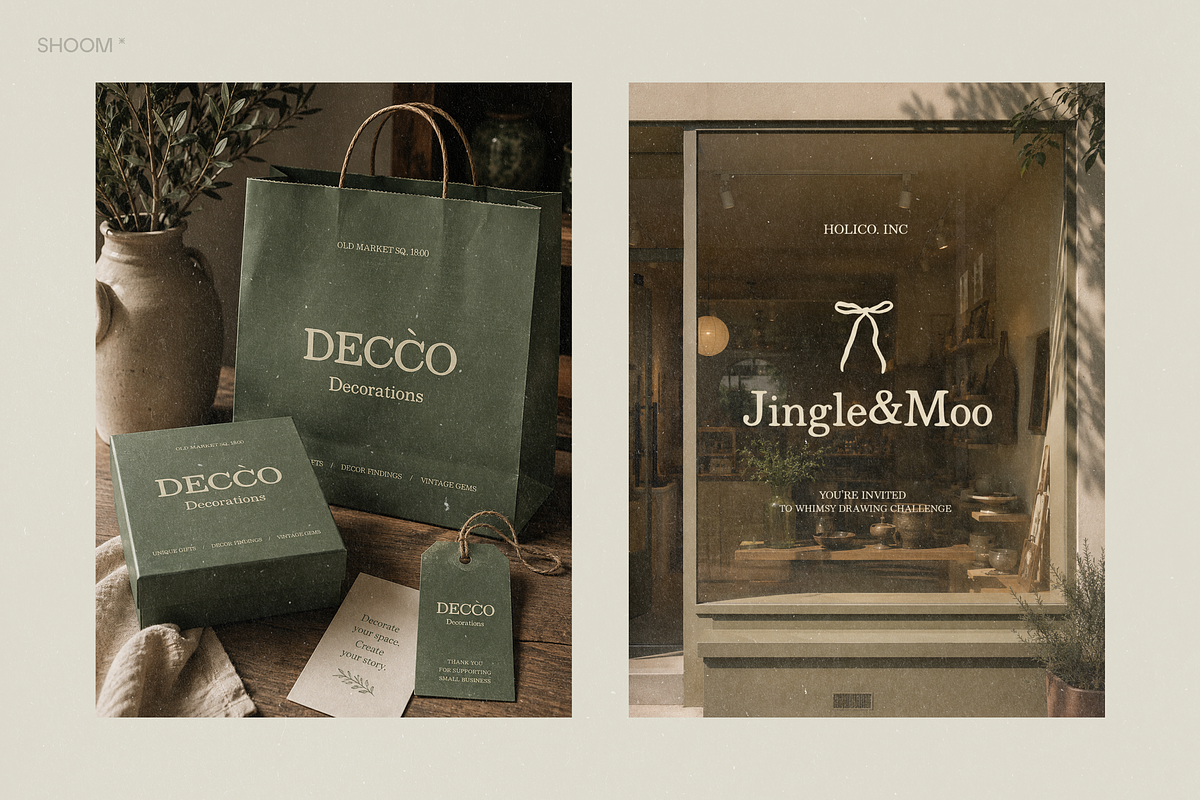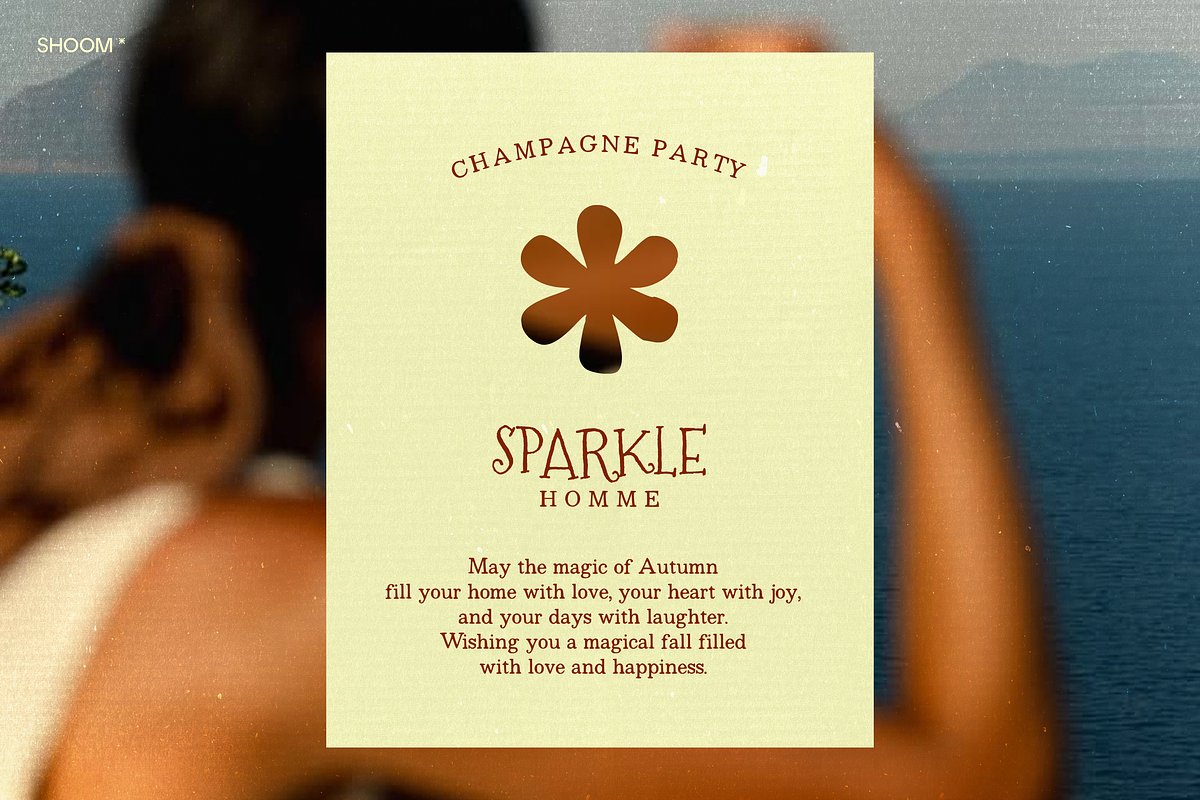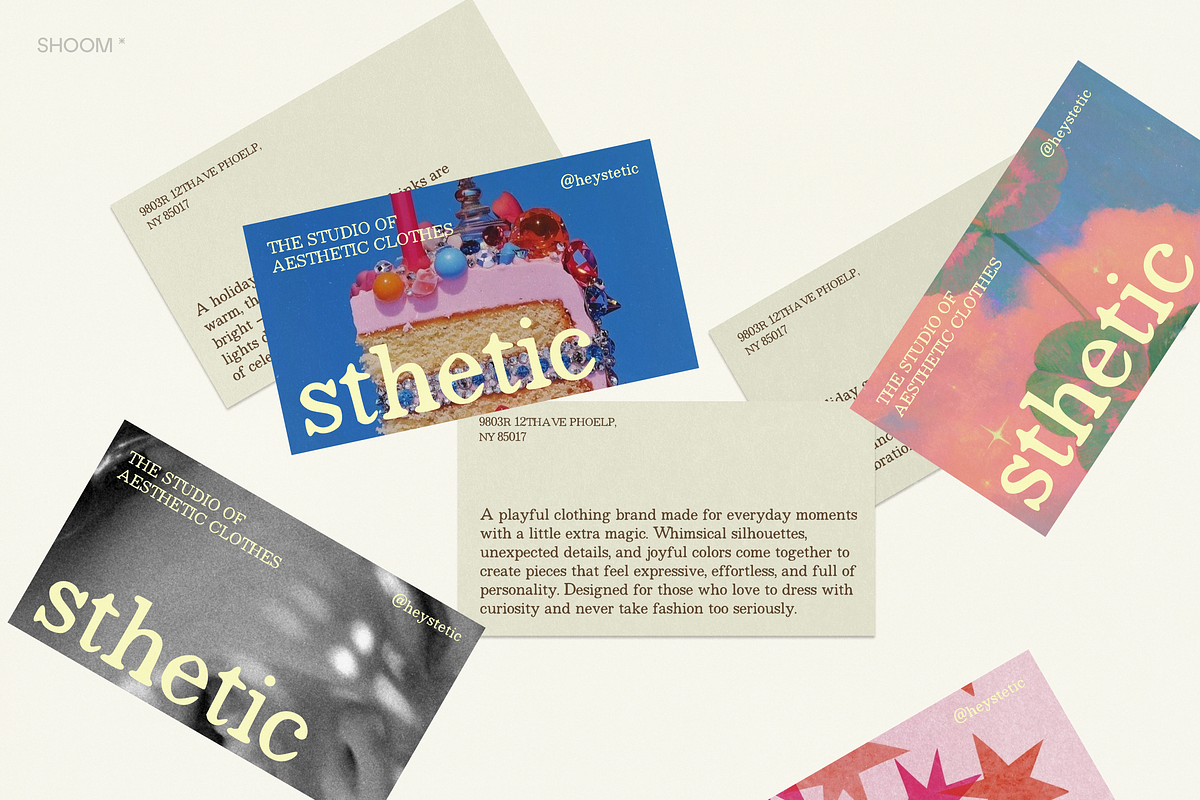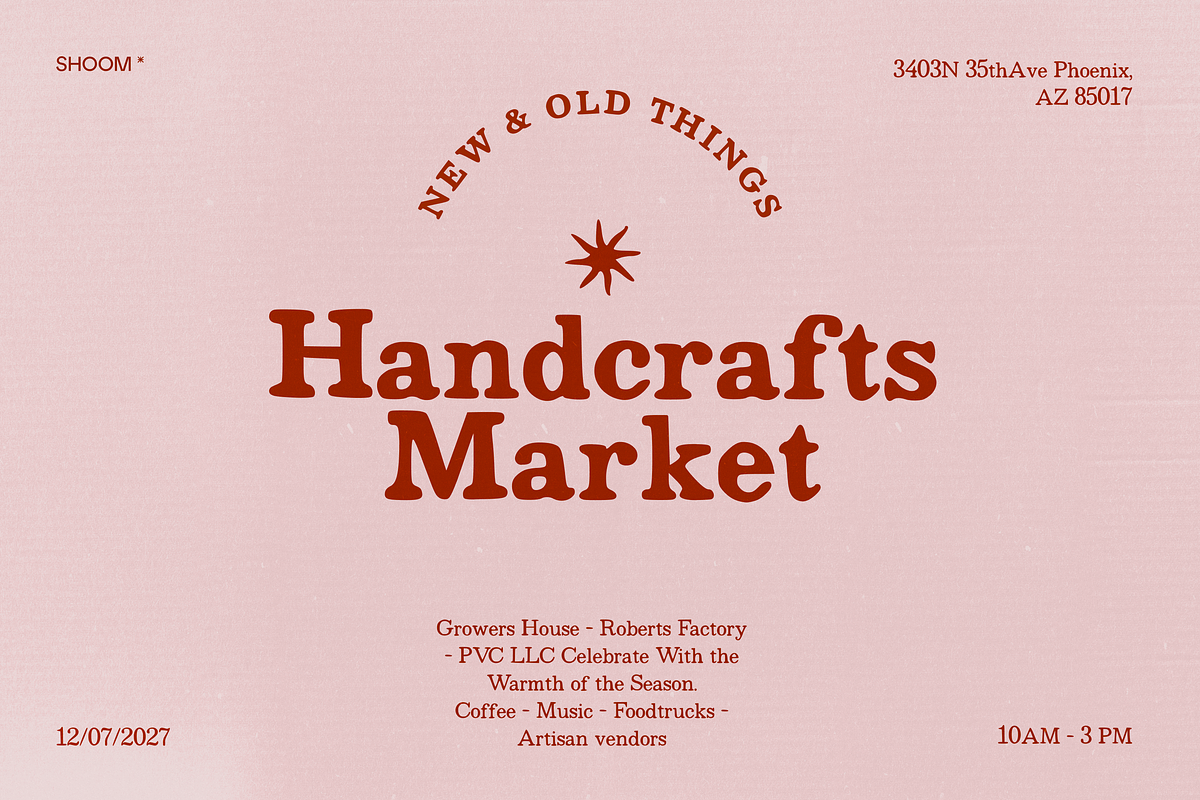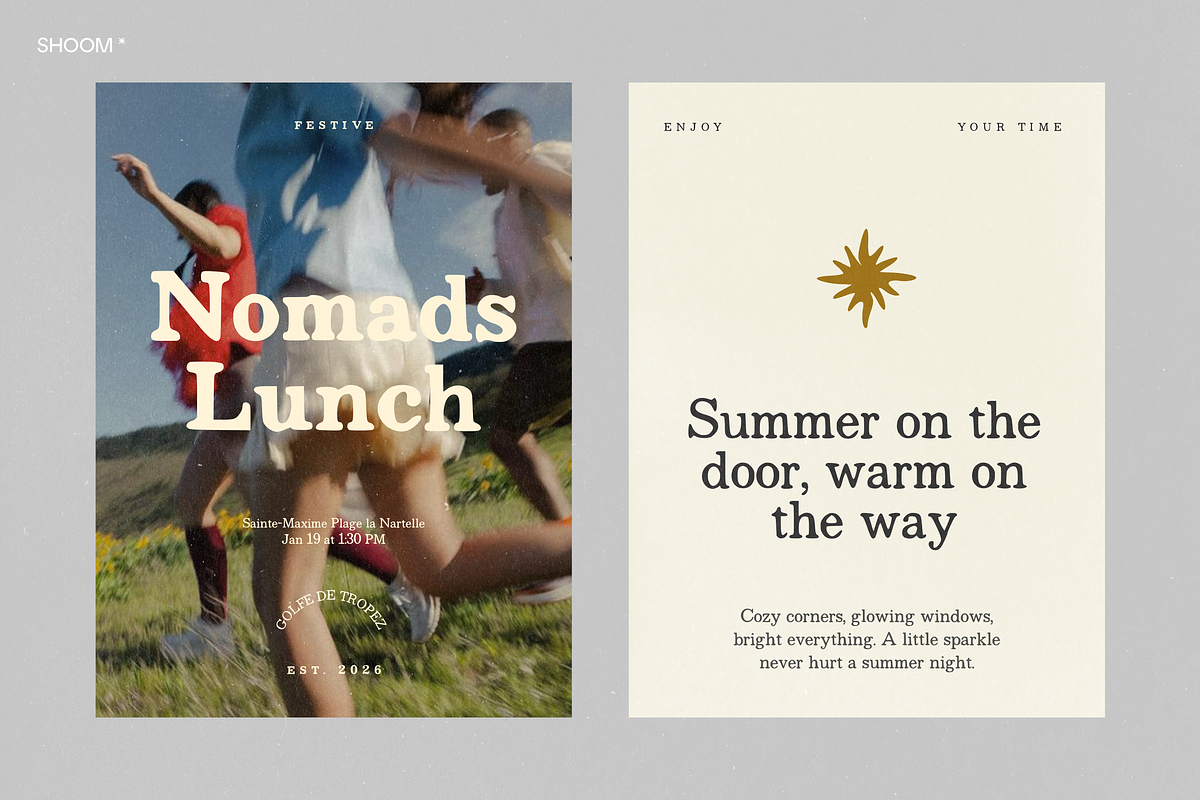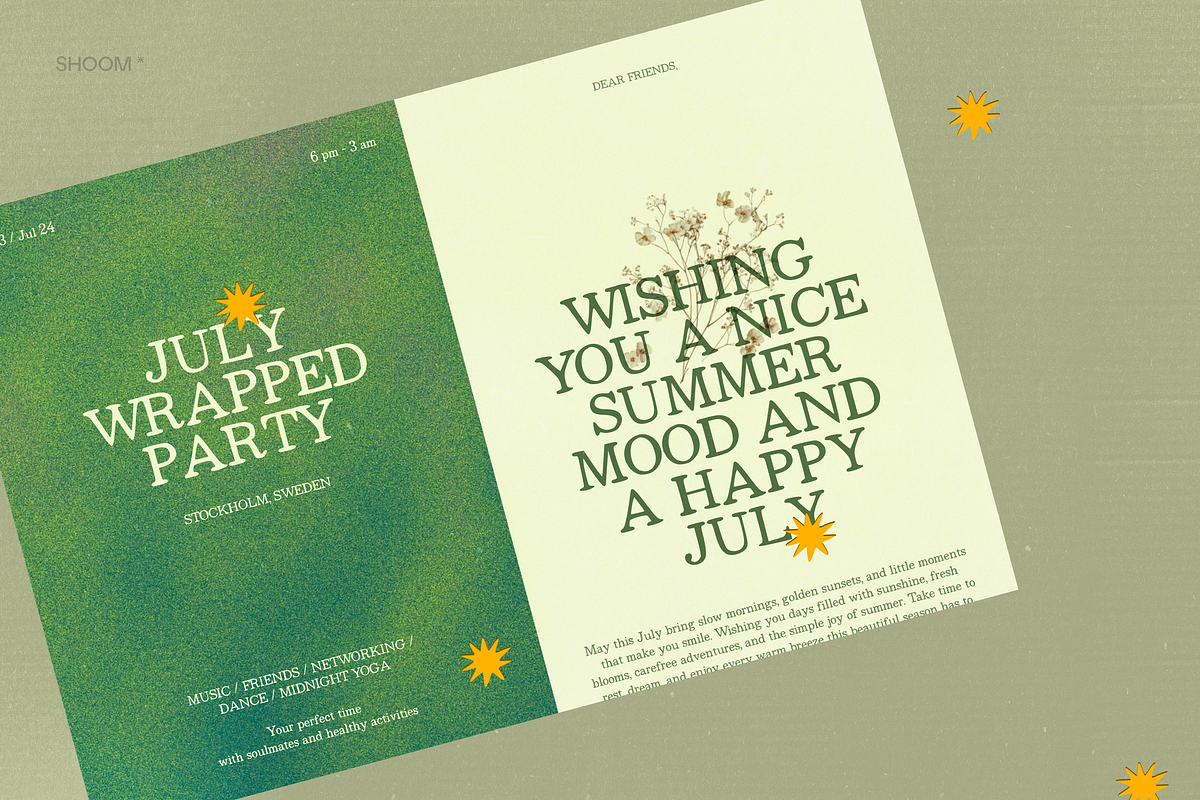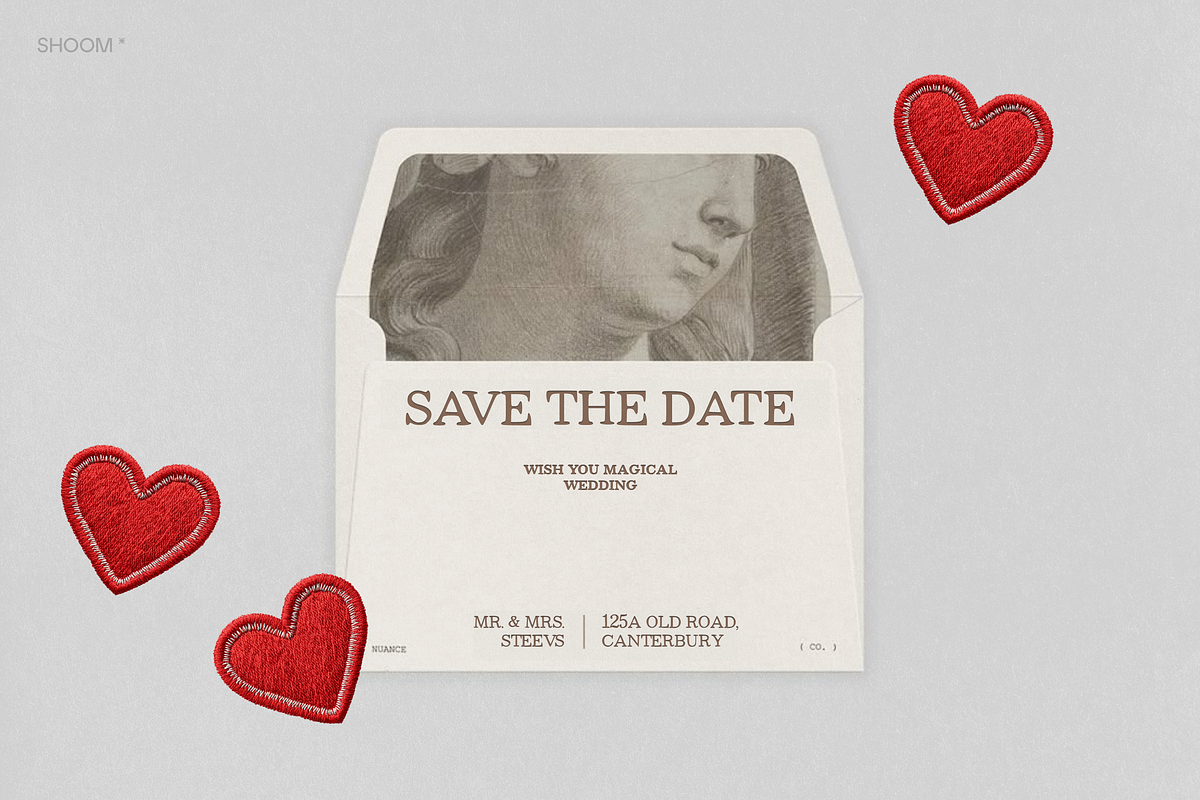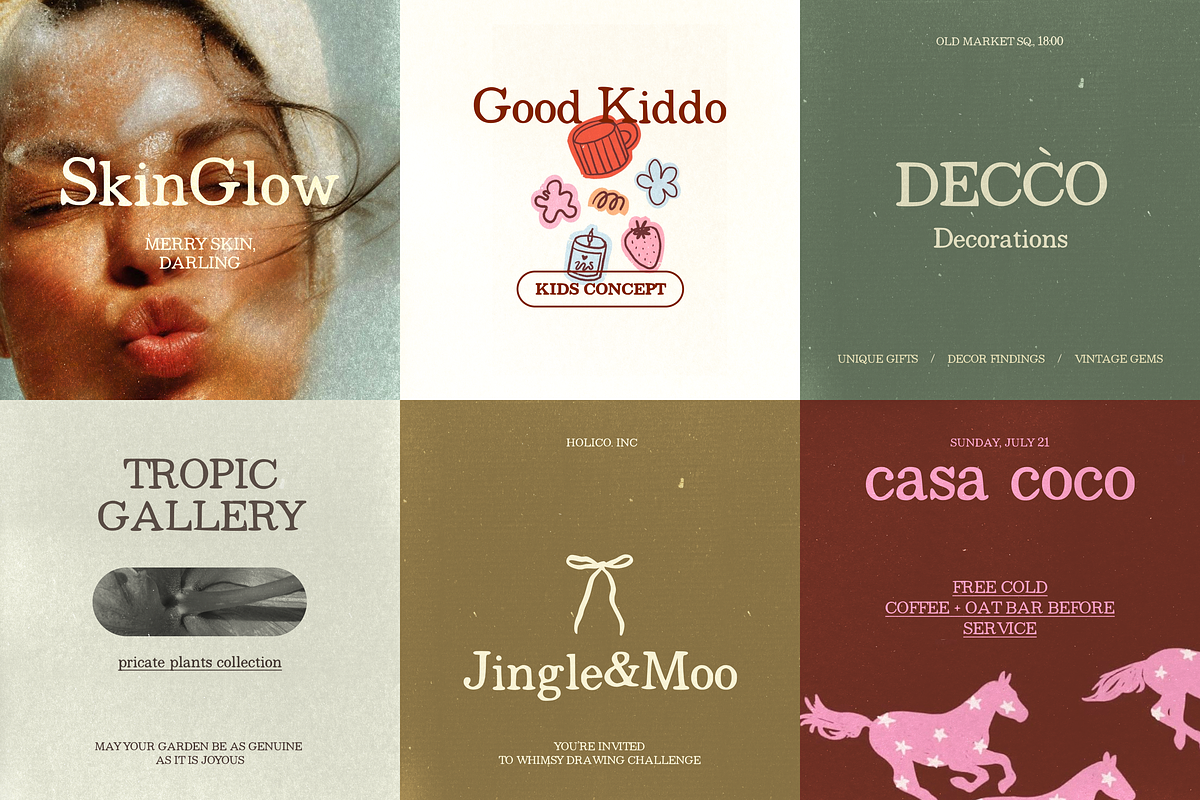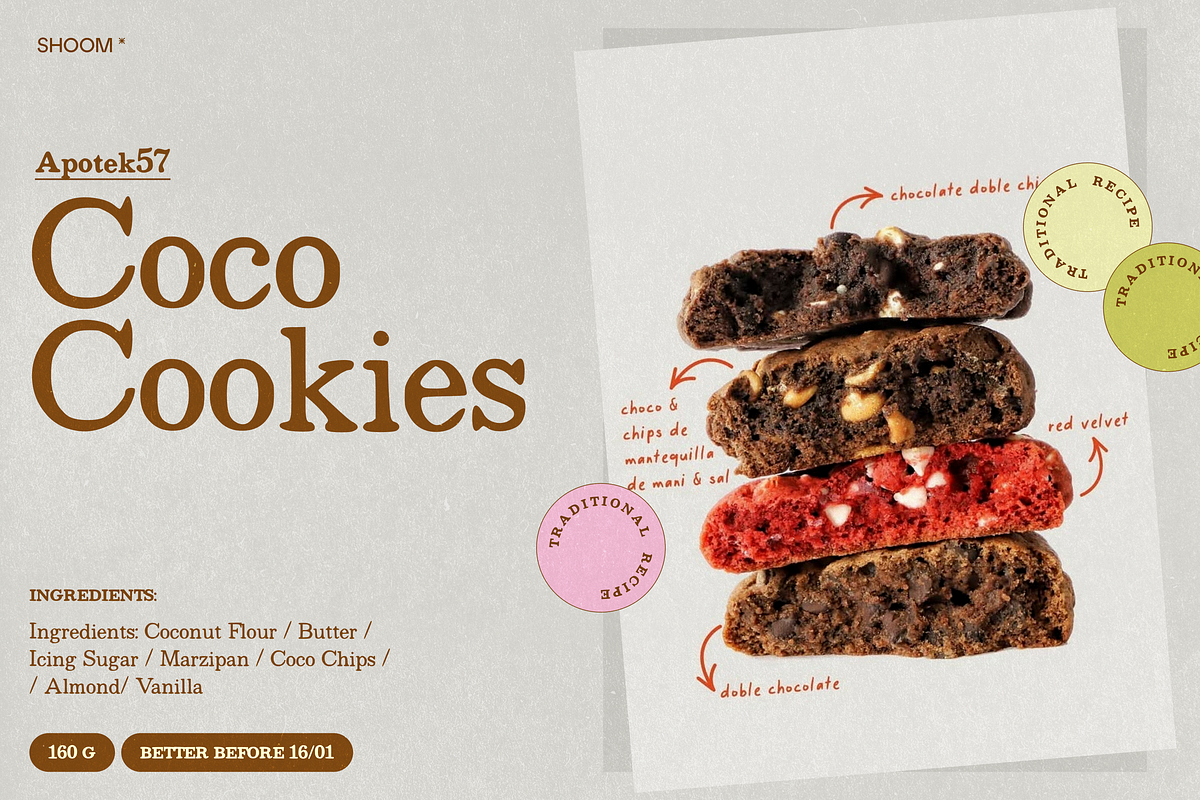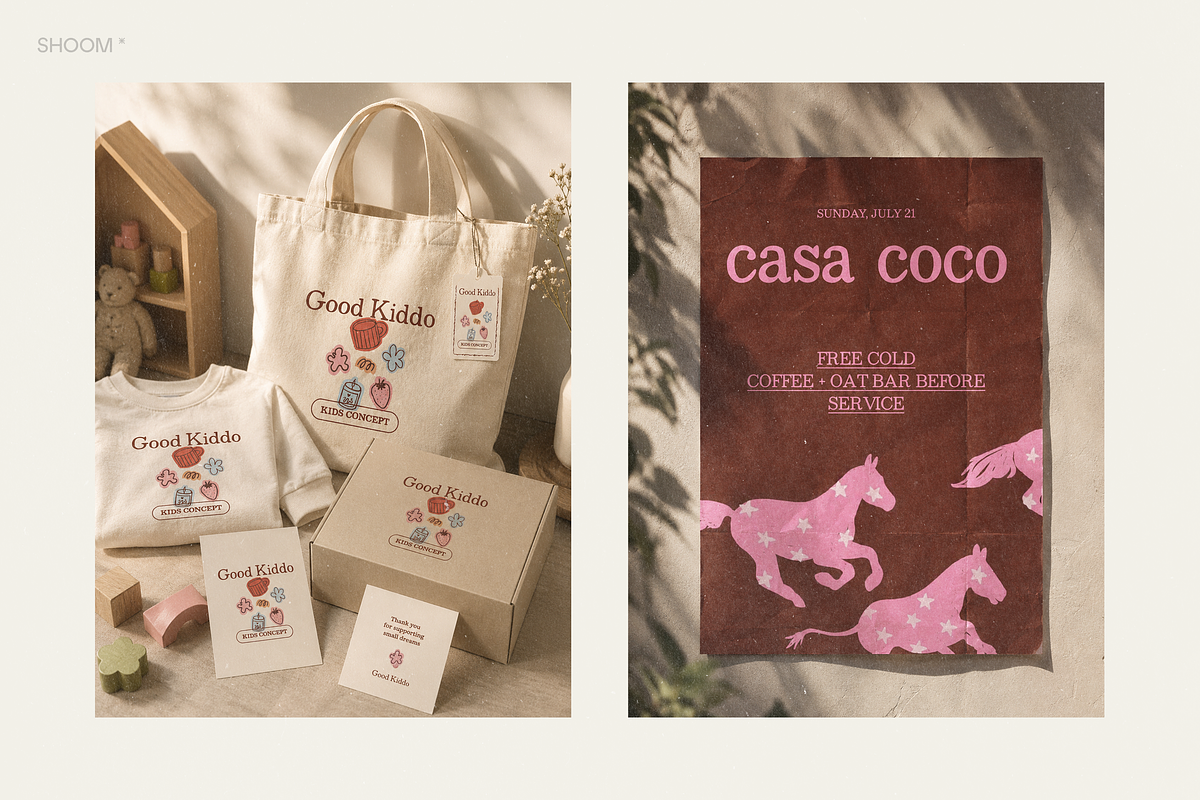
Whimsy Times: Organic Serif Family
✽ Meet Whimsy Times, an organic serif font with an imperfect soul and a beautifully handcrafted feel.
Whimsy Times blends classic serif character with natural, uneven shapes, subtle imperfections, and organic details. Available in Bold + Regular, it brings warmth, personality, and an effortlessly aesthetic touch to your designs without feeling overly polished or digital.
Every letter has its own little quirks: slightly irregular edges, unexpected curves, and human-like imperfections that make the typeface feel tactile, authentic, and alive.
Whimsy Times is made for brands that want to feel natural, thoughtful, artistic, and a little imperfect. Perfect for branding, packaging, editorial design, logos, posters, menus, social media, and any project where typography needs to carry a mood.
✽ PERFECT FOR
Brand identities
Logo & wordmark design
Packaging design
Editorial layouts
Posters & headlines
Café & restaurant branding
Beauty & lifestyle brands
Menus & stationery
Creative presentations
Quotes & prints
Handmade & organic-inspired projects
✽ FONT FEATURES
Organic serif display font
Bold + Regular styles
Handcrafted & imperfect letterforms
Naturally uneven shapes & details
Organic curves and subtle irregularities
Uppercase & lowercase English alphabet
Made for slow mornings, thoughtful brands, natural textures, imperfect beauty, and designs with a human touch.
Whimsy Times is for those moments when perfectly perfect just isn't the point.